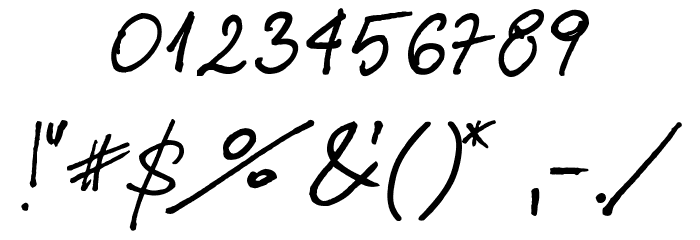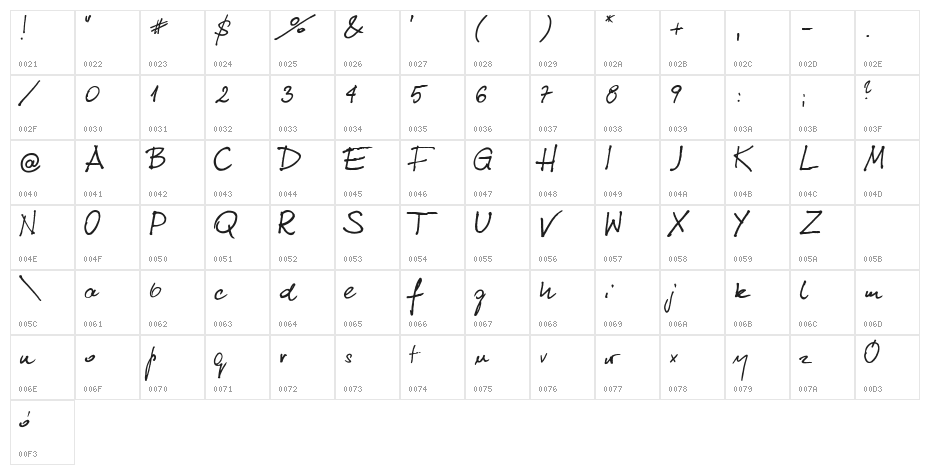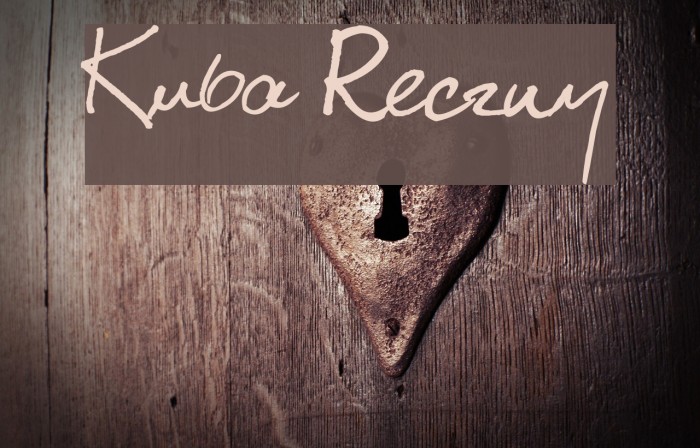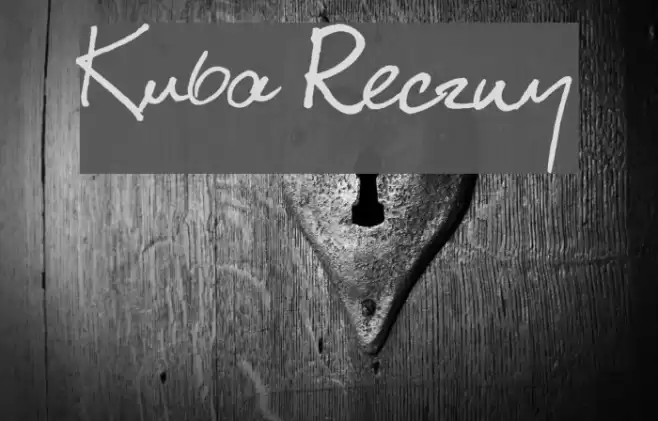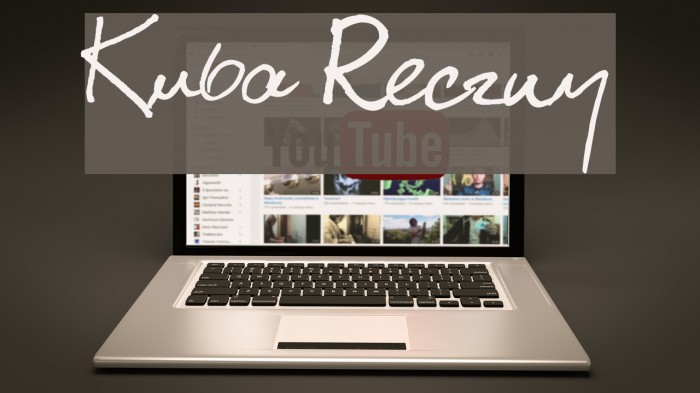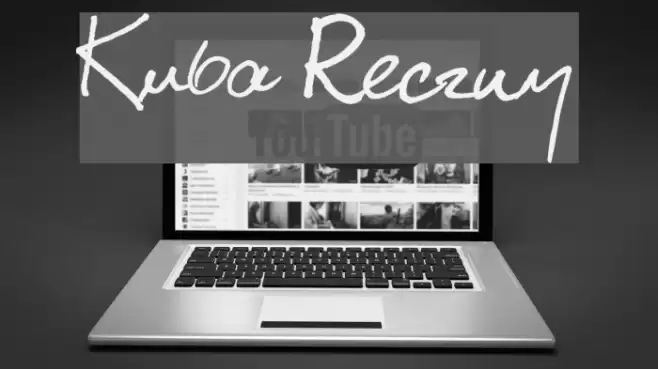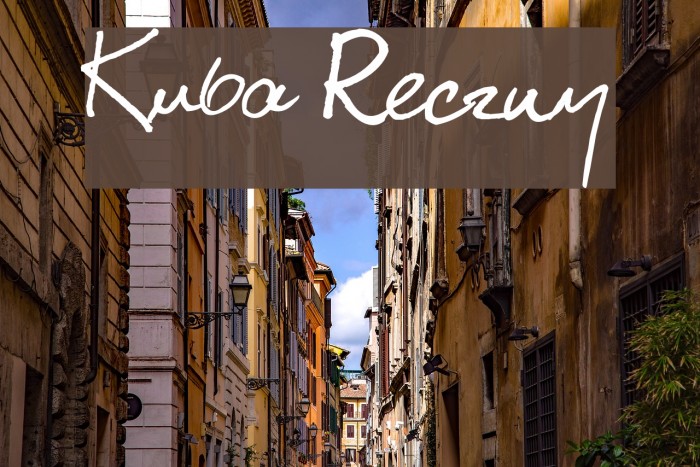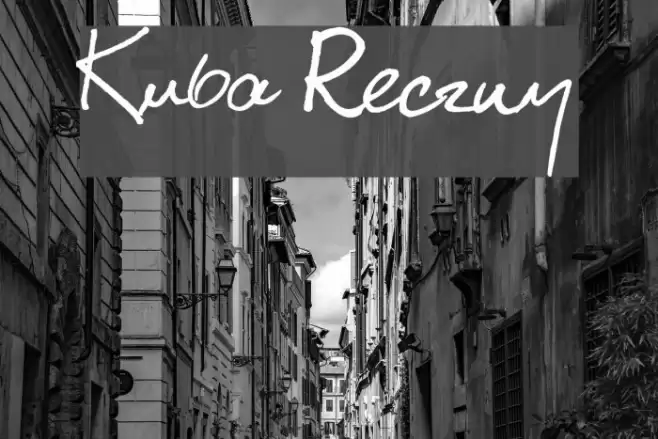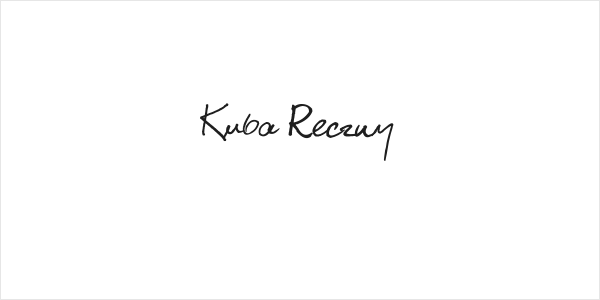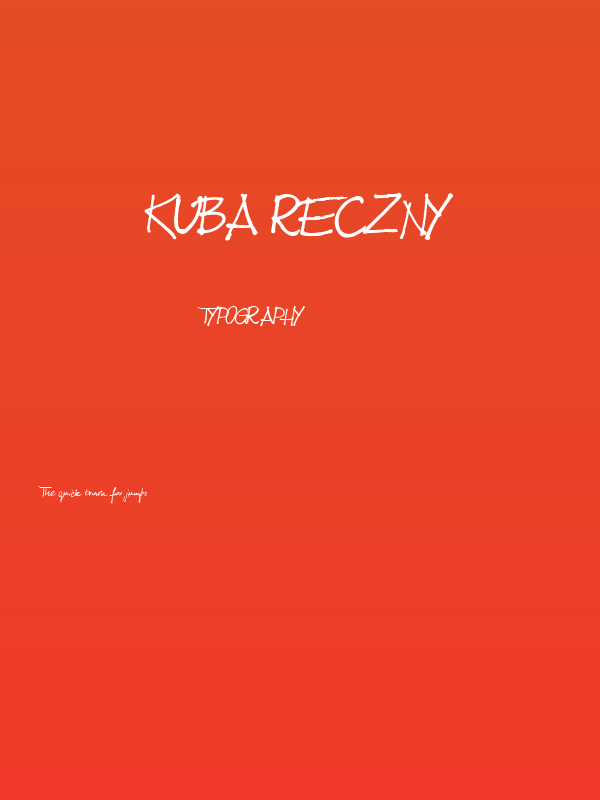
Kuba Reczny Font
Kuba Reczny Description
This font exudes a handwritten, casual style with a dynamic and expressive character. The letters are fluid and slightly irregular, mimicking the natural flow of handwriting. The uppercase and lowercase letters are distinct yet harmonious, with a playful and artistic flair. The numbers and special characters maintain the same lively and informal aesthetic, making the font versatile for creative projects. The strokes vary in thickness, adding a sense of movement and energy to the text. Overall, this font captures the essence of personal handwriting, making it ideal for projects that require a personal touch.
| Overall Style | Casual, Artistic |
| Use Case | Logos, Invitations, Personal notes |
| Proposed Projects | Ideal for personal notes, creative invitations, artistic branding, and informal communication. |